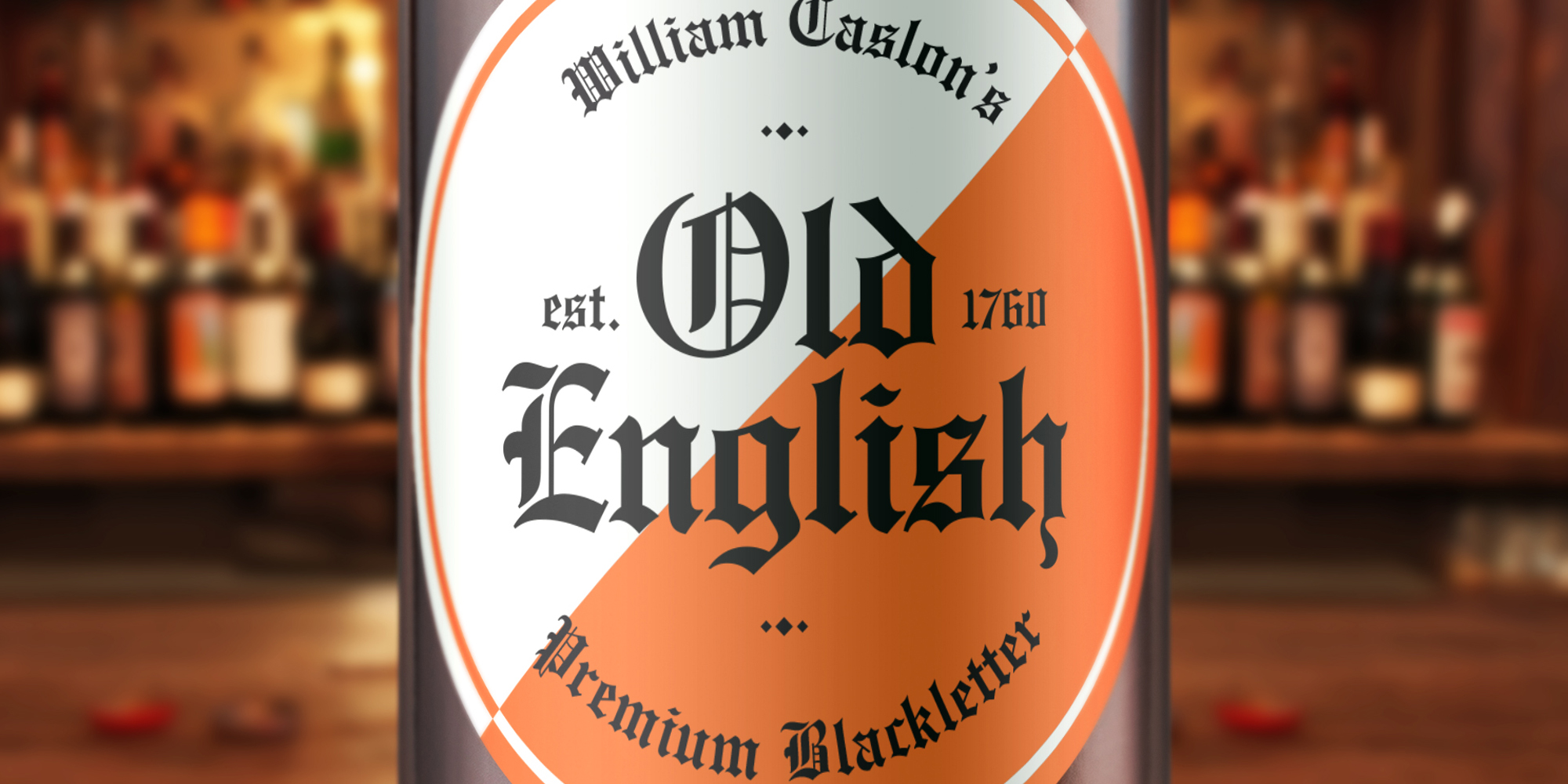
Old English (Let) Font Free Download is a captivating typeface that brings a touch of historical elegance to any design. Please note that you must purchase this font for commercial use. You can download it for free for testing purposes. This font is perfect for applications like certificates, invitations, book covers, vintage logos, and themed event branding, where its ornate, gothic style shines. Its intricate and timeless design makes it exciting, evoking a sense of tradition and grandeur that enhances creative projects. The Old English (Let) Font family includes Regular, Bold, and Italic variations, offering versatility for various design needs.
Elevate your work with Old English (Let) Font Free Download, a typeface that exudes classic charm and sophistication. Its elaborate letterforms and decorative flourishes make it ideal for projects requiring a medieval or antique aesthetic, such as historical publications, wedding stationery, or fantasy-themed graphics. The font’s unique structure ensures a striking visual impact while maintaining legibility for decorative purposes. Whether you’re designing a poster for a Renaissance fair, crafting a logo for a heritage brand, or creating titles for a period drama, Old English (Let) Font delivers authenticity and allure. Its adaptability suits both print and digital media, providing a cohesive look across platforms. The font’s rich, gothic-inspired details reflect a storied typographic legacy, making it a top choice for designers aiming to evoke nostalgia and prestige. With its range of styles, Old English (Let) Font empowers creatives to craft visually stunning designs that stand out. Download it today to explore its historical beauty and infuse your projects with a distinguished, old-world elegance that leaves a lasting impression.